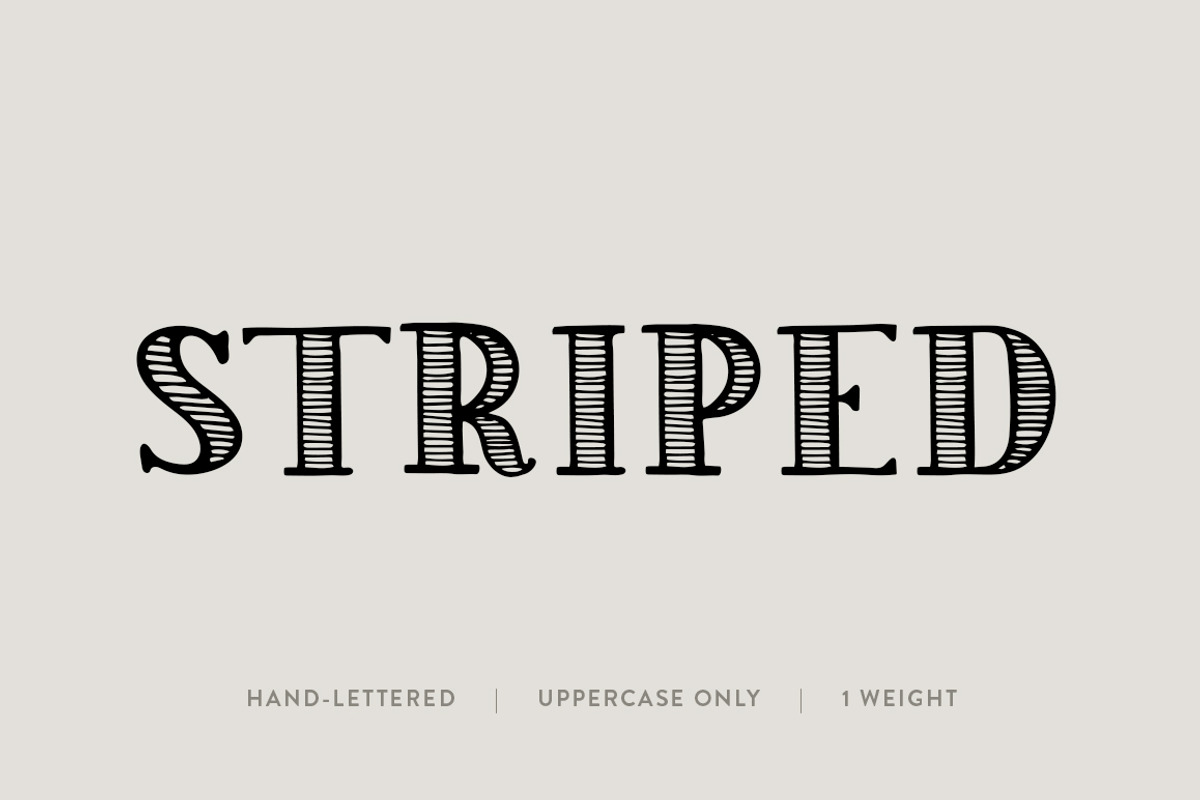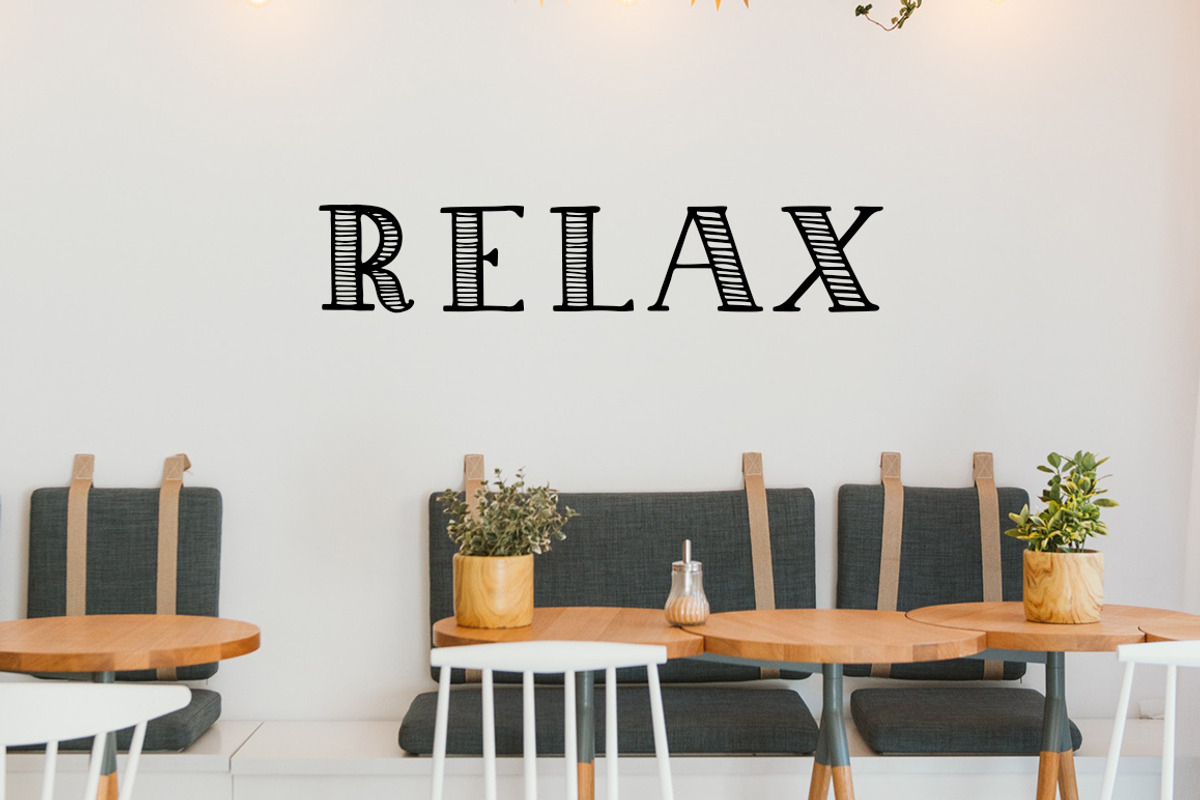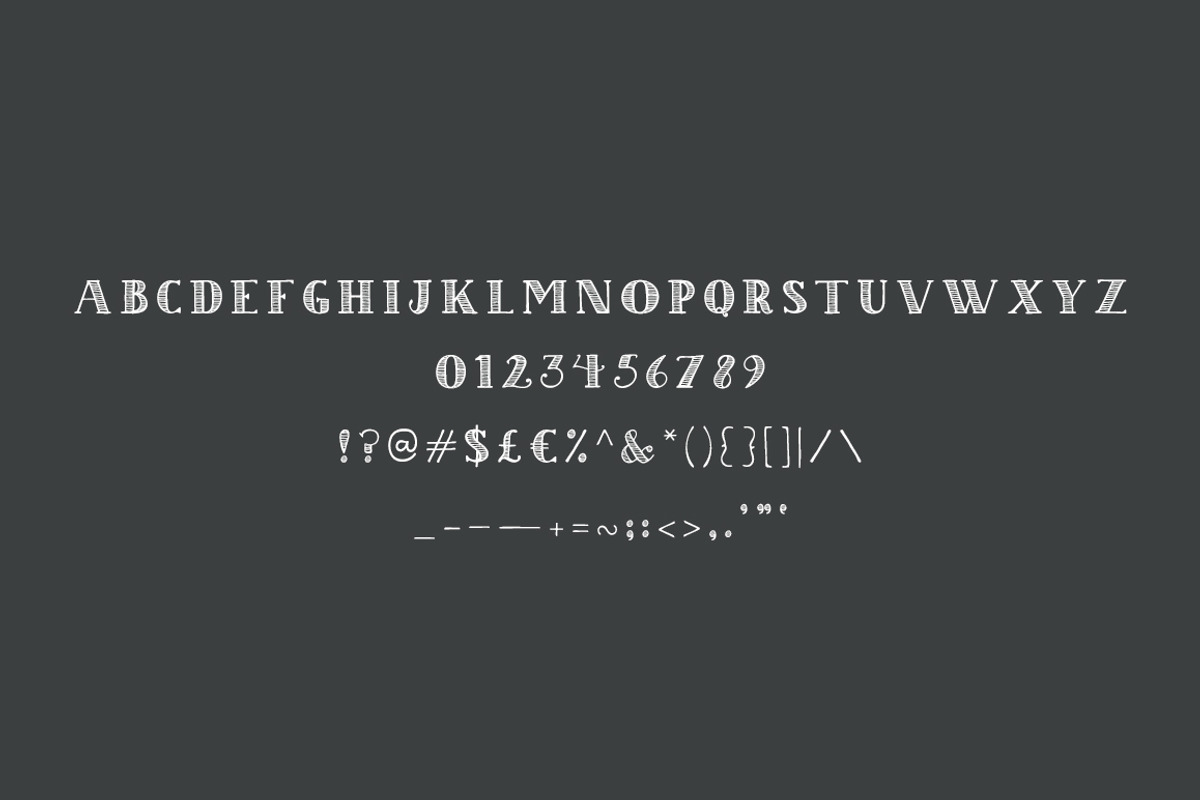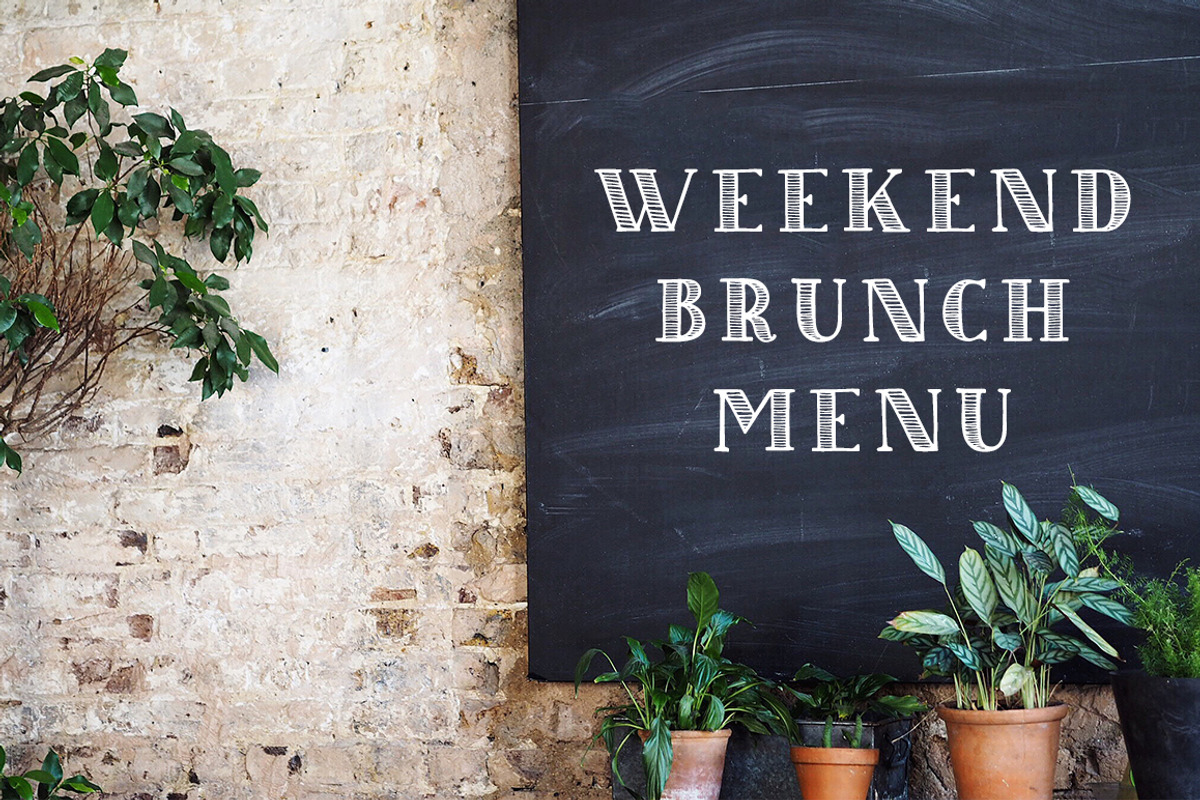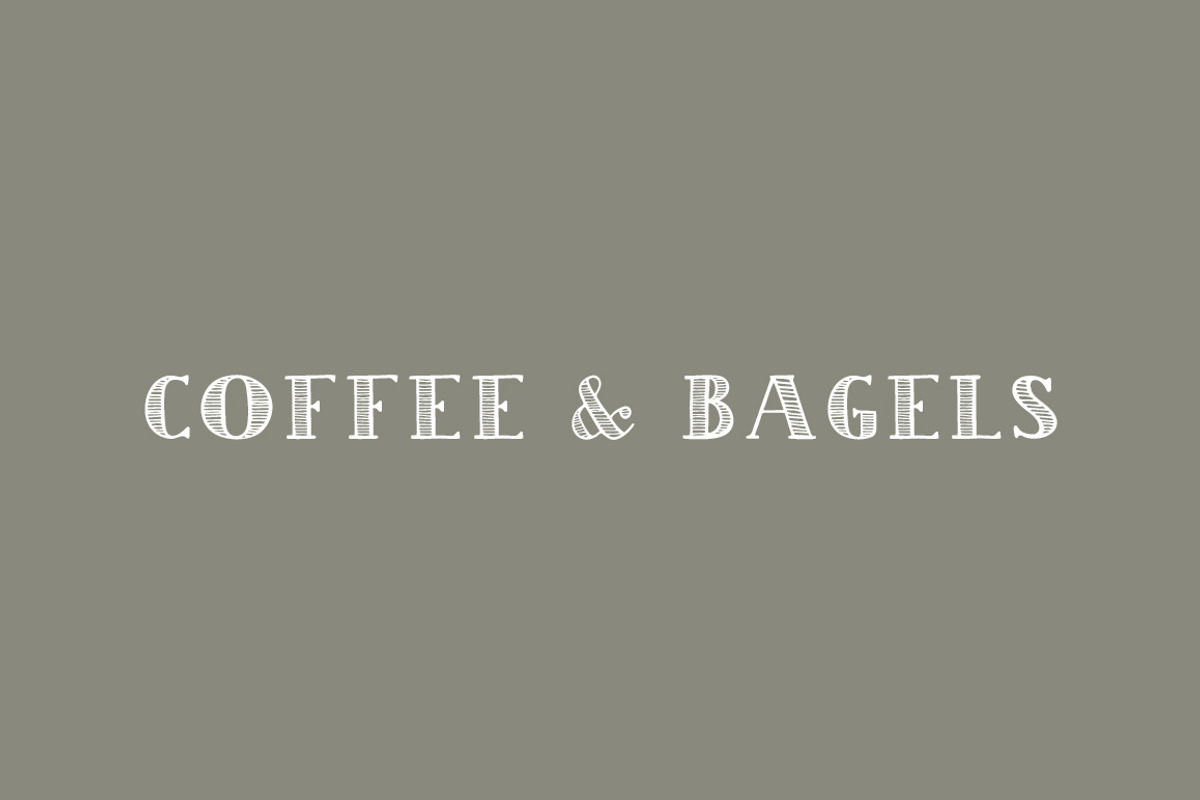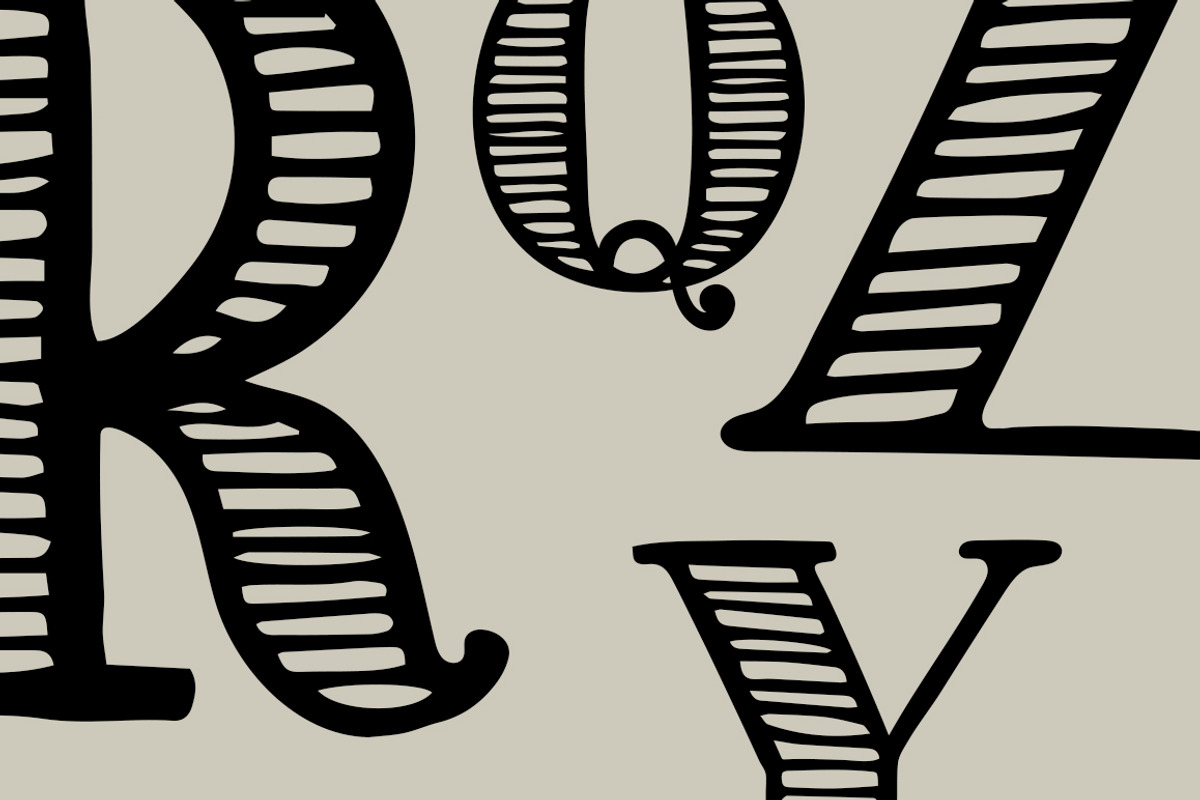
Striped: A Hand-Lettered Font
Striped was inspired by lettering I've come across throughout my travels. The shapes and stripes have a vintage feel to them while also bringing in an organic touch. This font is quirky yet versatile. With its bold feel and a slight touch of organic, this font works best as a header font or for smaller bodies of text. It is perfect for projects that need a naturally bold font like blog posts, social graphics, event posters, and logos.
This font was created by hand and then digitized. Enjoy!